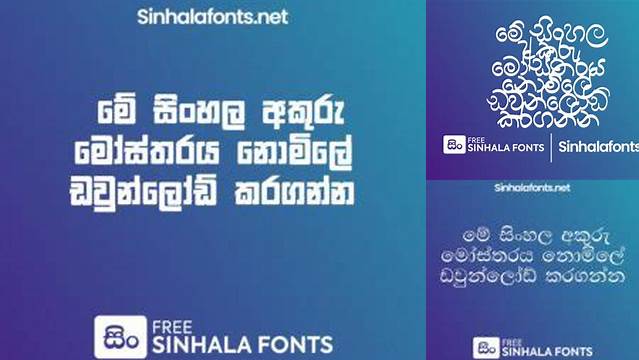
Sinhala Fonts: Your Ultimate Guide
Hey guys! Ever stumbled upon a beautiful Sinhala website or document and wondered how they got those fancy Sinhala fonts? Or maybe you're looking to jazz up your own projects with some authentic Sinhala script? Well, you've come to the right place! In this mega-guide, we're diving deep into the awesome world of Sinhala fonts. We'll explore everything from where to find them, how to use them, and why they're so important for preserving and promoting the rich Sinhala language. So, buckle up, because we're about to unlock the secrets to stunning Sinhala typography!
Understanding the Basics of Sinhala Fonts
Alright, let's kick things off by getting a handle on what exactly Sinhala fonts are. Unlike the alphabets you might be used to, Sinhala script has a unique structure. It's an abugida, meaning each consonant has an inherent vowel sound, and other vowel signs are added as diacritics. This means that creating good Sinhala fonts isn't just about drawing letters; it's about crafting these complex relationships between consonants and vowels, and ensuring they look just right together. We're talking about diacritics that need to fit perfectly above, below, or around the main character, ligatures that connect characters smoothly, and a whole lot of precision. When you download and install a Sinhala font, you're not just getting a set of glyphs; you're getting a carefully designed system that respects the nuances of the language. The quality of these fonts can drastically impact readability and the overall aesthetic appeal of your content. A poorly designed font can make even the most beautifully written Sinhala text look clunky and difficult to decipher, while a well-crafted one can elevate your message and truly connect with your audience. It's like the difference between a handwritten note and a professionally printed book – the font plays a crucial role in that perception. We'll explore how different font styles, from traditional to modern, can convey different moods and messages, helping you choose the perfect one for any project. So, before we jump into finding these fonts, it's super important to appreciate the artistry and technical skill that goes into making them. It's not just digital art, guys, it's linguistic heritage brought to life on your screen!
Why Good Sinhala Fonts Matter for Digital Content
So, why all the fuss about good Sinhala fonts? In today's digital world, your online presence is often the first impression people get. If you're running a website, a blog, or even just social media posts in Sinhala, the fonts you use are hugely important. Bad fonts can make your content look unprofessional and hard to read, which means people might just click away. Think about it: would you stick around on a site with blurry text? Probably not! Good Sinhala fonts, on the other hand, make your content look polished, trustworthy, and engaging. They help preserve the beauty and integrity of the Sinhala language in the digital space. When you use high-quality, well-designed Sinhala fonts, you're showing respect for your readers and for the language itself. It makes the text flow naturally, the characters align correctly, and the overall reading experience is smooth and enjoyable. This is especially critical for websites aiming to reach a Sinhala-speaking audience, as it fosters a sense of cultural connection and authenticity. Furthermore, search engines also consider user experience when ranking websites. Readable and aesthetically pleasing content, aided by good fonts, can contribute to better SEO performance. So, investing time in finding and using the right Sinhala fonts isn't just about making things look pretty; it's about effective communication, professional presentation, and ensuring your Sinhala content stands out for all the right reasons. It’s about making sure your message is heard loud and clear, and that your audience feels welcomed and understood. The right font can be the bridge between your content and your reader's appreciation.
The Impact of Font Choice on Readability
Let's talk turkey about readability, guys. When it comes to Sinhala fonts, this is non-negotiable. Readability isn't just about whether you can read the words; it's about how easily and comfortably you can read them. Imagine trying to read a novel where the letters are all smudged or awkwardly spaced – no fun, right? The same applies to Sinhala text. A well-designed Sinhala font ensures that each character is distinct, that the spacing between letters and words is optimal, and that vowel diacritics are positioned clearly without overlapping or obscuring the base consonant. This is particularly important for complex Sinhala characters and conjuncts (combinations of consonants). If these aren't rendered correctly, the text can become a jumbled mess, leading to frustration and misinterpretation. Good fonts often come with features like stylistic alternates or ligatures that are specifically designed to improve the flow and legibility of Sinhala script. For instance, certain character combinations might look better when joined in a specific way, and a superior font will handle these nuances flawlessly. Conversely, a poorly executed font can introduce inconsistencies, making it difficult for the eye to track from one character to the next. This can be a major barrier for learners of the language, as well as for native speakers who encounter subpar typography. So, when you're choosing a Sinhala font, always test it out with a good chunk of text. Does it feel natural to read? Are there any characters that look strange or are hard to distinguish? Prioritizing readability means prioritizing your reader's experience, making sure your message is not just seen, but truly understood. It’s the unsung hero of great content, and with Sinhala fonts, it’s a crucial element to get right.
Exploring Traditional Sinhala Font Styles
Now, let's get a little historical, shall we? Traditional Sinhala fonts are like the elegant elders of the font family. They often draw inspiration from ancient inscriptions, manuscripts, and early printing presses. Think about the classic look you see in historical texts or government documents – that's often the charm of traditional Sinhala fonts. These styles tend to be more ornate, with distinct serifs (those little decorative strokes at the ends of letters) and a certain gravitas. They evoke a sense of heritage, authority, and cultural depth. For projects that aim to connect with Sri Lanka's rich history, religious texts, or formal documentation, these traditional fonts are often the perfect choice. They lend an air of authenticity and respect. However, it's important to note that some traditional fonts might not be as optimized for screen readability as their modern counterparts. The intricate details that look great on paper can sometimes become a bit lost or pixelated on lower-resolution screens. Despite this, their aesthetic appeal is undeniable. They carry a certain weight and dignity that modern fonts sometimes lack. When using them, consider the context. Are you aiming for a formal, historical feel? Then a traditional Sinhala font might be your go-to. Websites focusing on Sri Lankan history, cultural preservation, or even high-end artisanal products might benefit from the classic elegance these fonts offer. It’s about embracing the legacy and making it relevant for today’s audience, ensuring that the visual representation of the Sinhala language honors its long and storied past. They are more than just letters; they are a visual link to generations gone by.
The Evolution Towards Modern Sinhala Typefaces
Moving on from the classics, let’s chat about the evolution towards modern Sinhala typefaces. As technology advanced and digital screens became the norm, there was a growing need for Sinhala fonts that were not only beautiful but also highly functional on computers and mobile devices. Modern Sinhala fonts often feature cleaner lines, simpler designs, and optimized spacing for on-screen reading. They are typically sans-serif (meaning they lack those little decorative strokes) or have very subtle serifs, making them incredibly legible even at smaller sizes. Designers started experimenting with bolder weights, varied character sets, and better handling of complex Sinhala conjuncts and diacritics, ensuring that the script remained clear and readable across different platforms and devices. This evolution was driven by the need to make Sinhala content accessible and appealing to a wider, digitally-native audience. Think about the apps, websites, and digital publications you interact with daily – they predominantly use modern, screen-friendly fonts. This shift doesn't mean modern Sinhala fonts lose their cultural essence; rather, they adapt it for contemporary use. Many modern designs still draw inspiration from traditional forms but are refined for clarity and efficiency. They offer a fresh, clean aesthetic that can feel more approachable and dynamic. For businesses, blogs, and general communication, modern Sinhala fonts are often the practical choice, ensuring your message is delivered clearly and professionally in the fast-paced digital environment. It’s all about finding that sweet spot between aesthetic appeal, cultural relevance, and digital usability, making the Sinhala language shine in the 21st century.